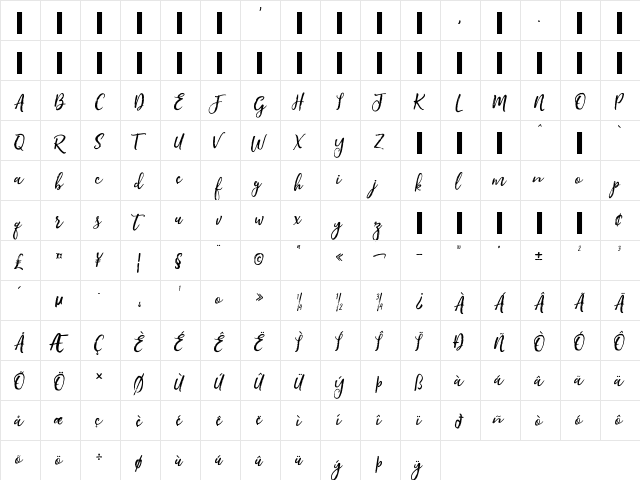
Jane Austin Regular
Design Context for Jane Austin Typeface
Jane Austin is a composed and adaptable typeface that performs quietly and consistently across a wide range of design contexts.